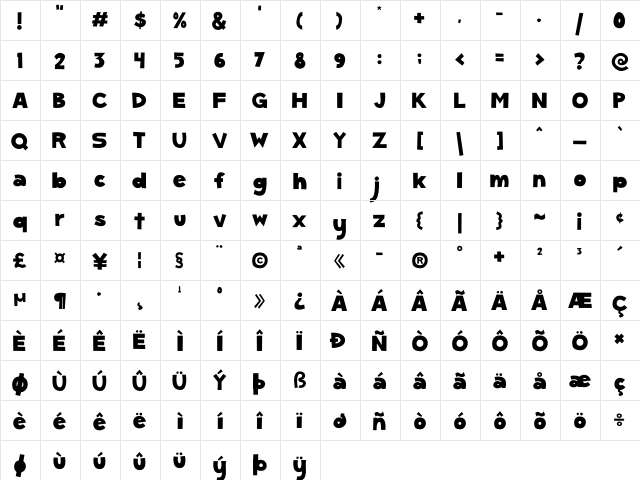
SC Gum Kids Regular
Design Context for SC Gum Kids Typeface
SC Gum Kids has an approachable, lighthearted character — its loose, expressive forms are well-suited to children's content, casual branding, and fun-first design.
Well-suited to food and beverage brands with personality, educational materials, and fun-forward identities.
Font Pairing: Pairs well with a rounded or humanist sans for body copy, maintaining the friendly tone without relying on SC Gum Kids to carry extended reading.
Pro Tip: Use SC Gum Kids at larger display sizes where its expressive character can land. Pair with a clean, simple sans for body copy to maintain readability.